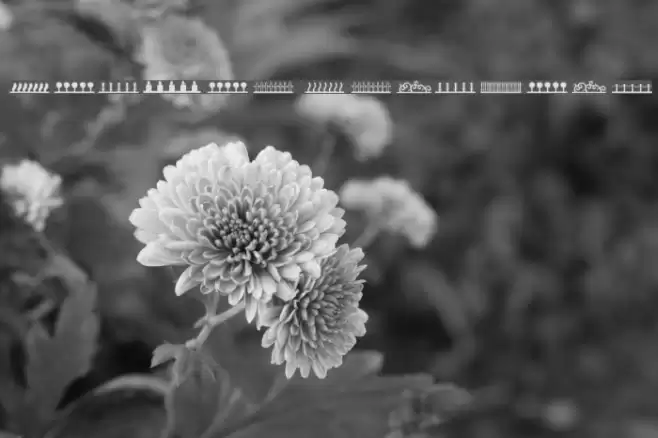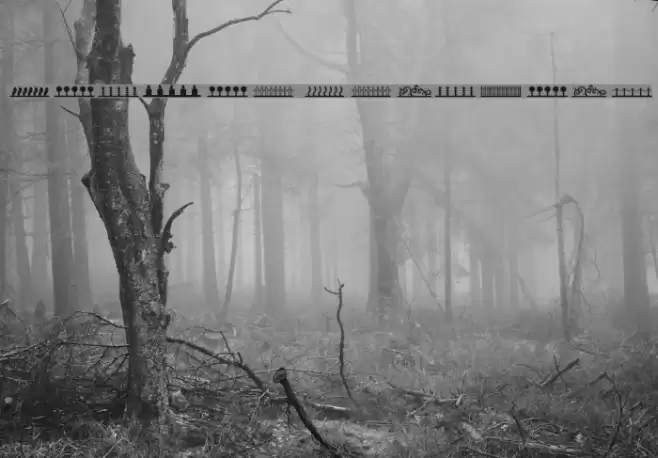
Header Ornament Font
Header Ornament Description
A decorative dingbat font composed of various ornamental and geometric shapes, including swirls, zigzags, triangles, lines, and block patterns, designed to create borders, headers, or embellishments rather than standard alphanumeric characters.
Ornamental dingbat font with geometric and decorative motifs from Dingbats fonts.
- Proposed Projects: Invitations, certificates, decorative borders, section dividers, vintage-style headers, scrapbooking.
- Overall Style: Decorative, Vintage
- Use Case: Borders, Ornaments, Section breaks, Decorative headers